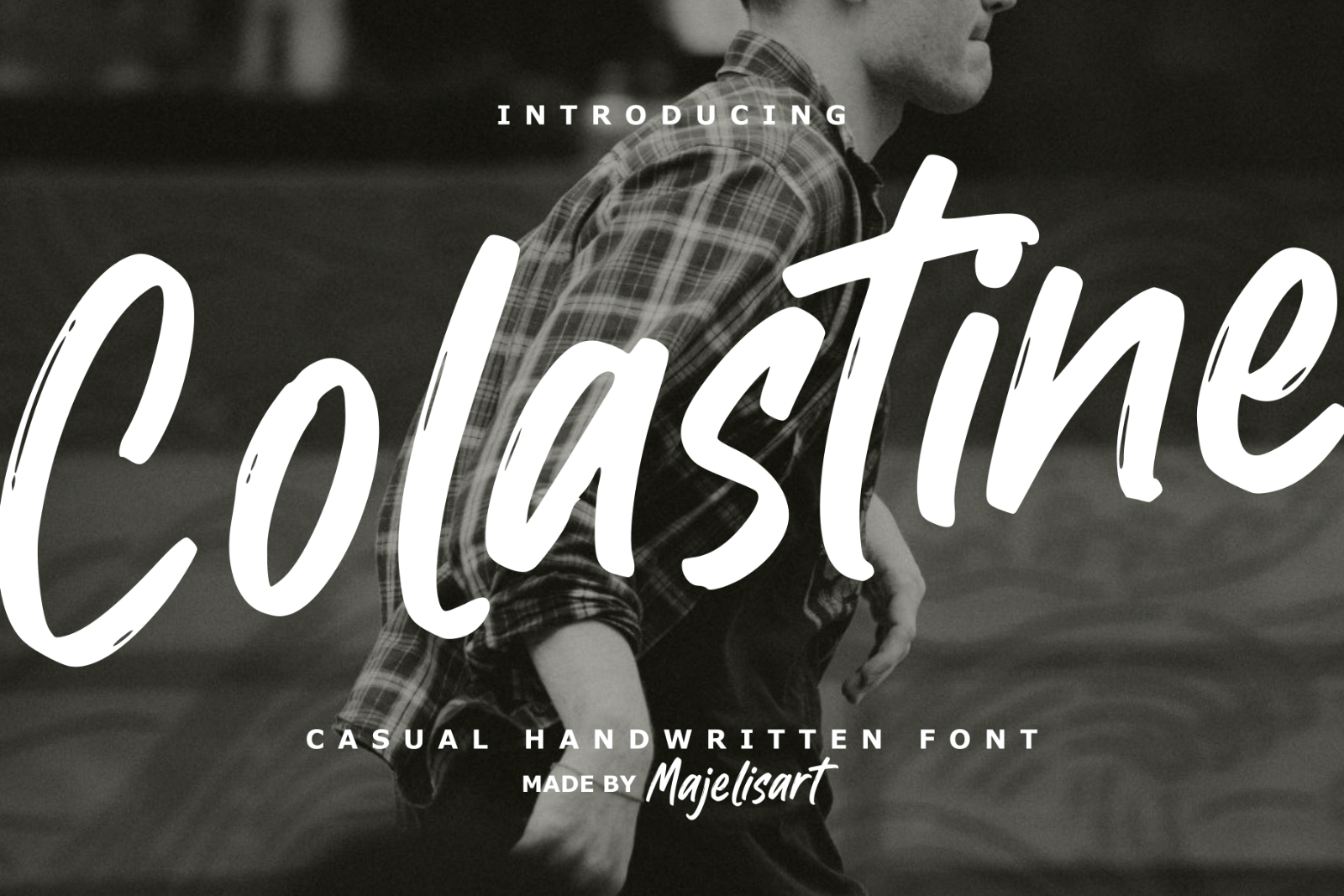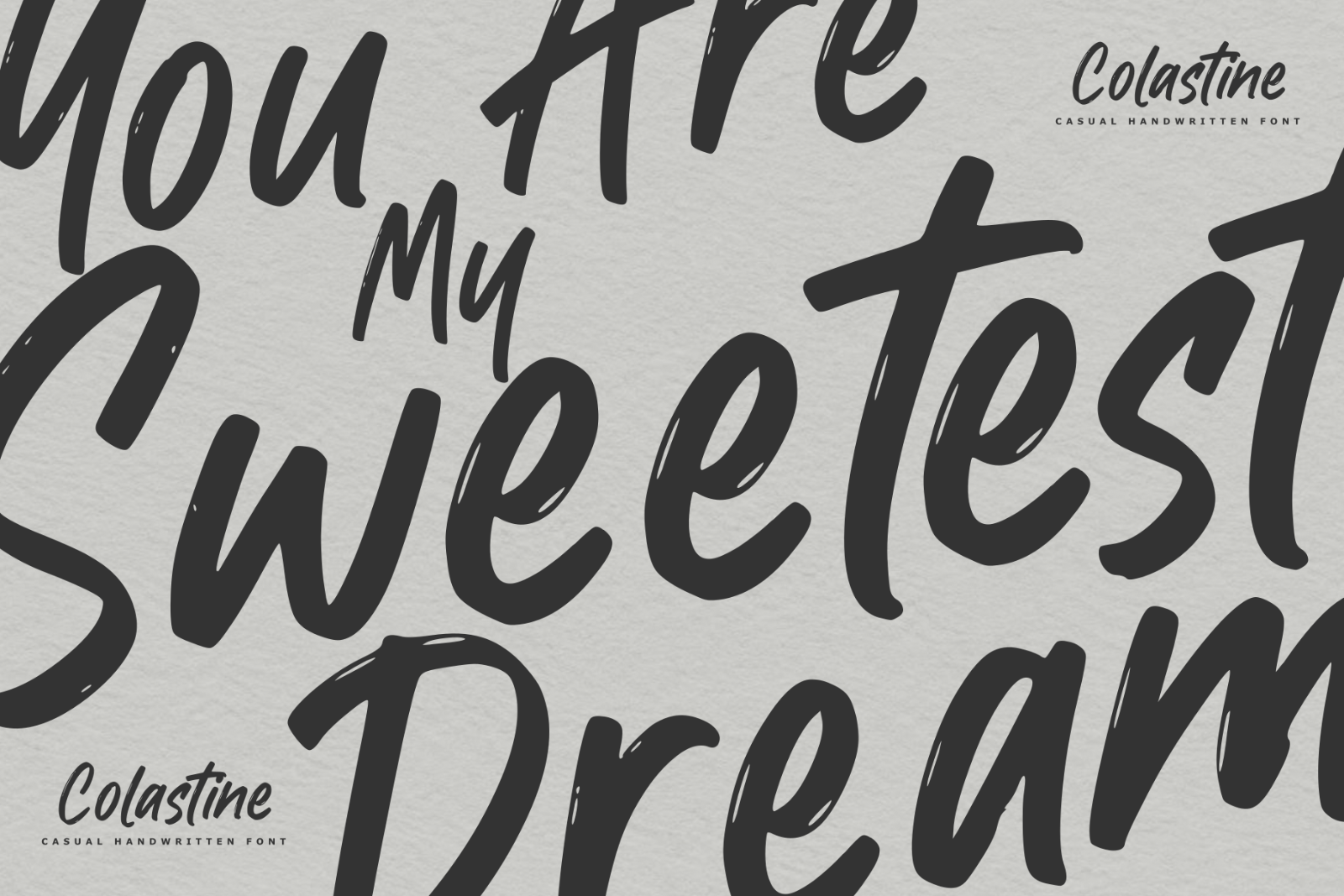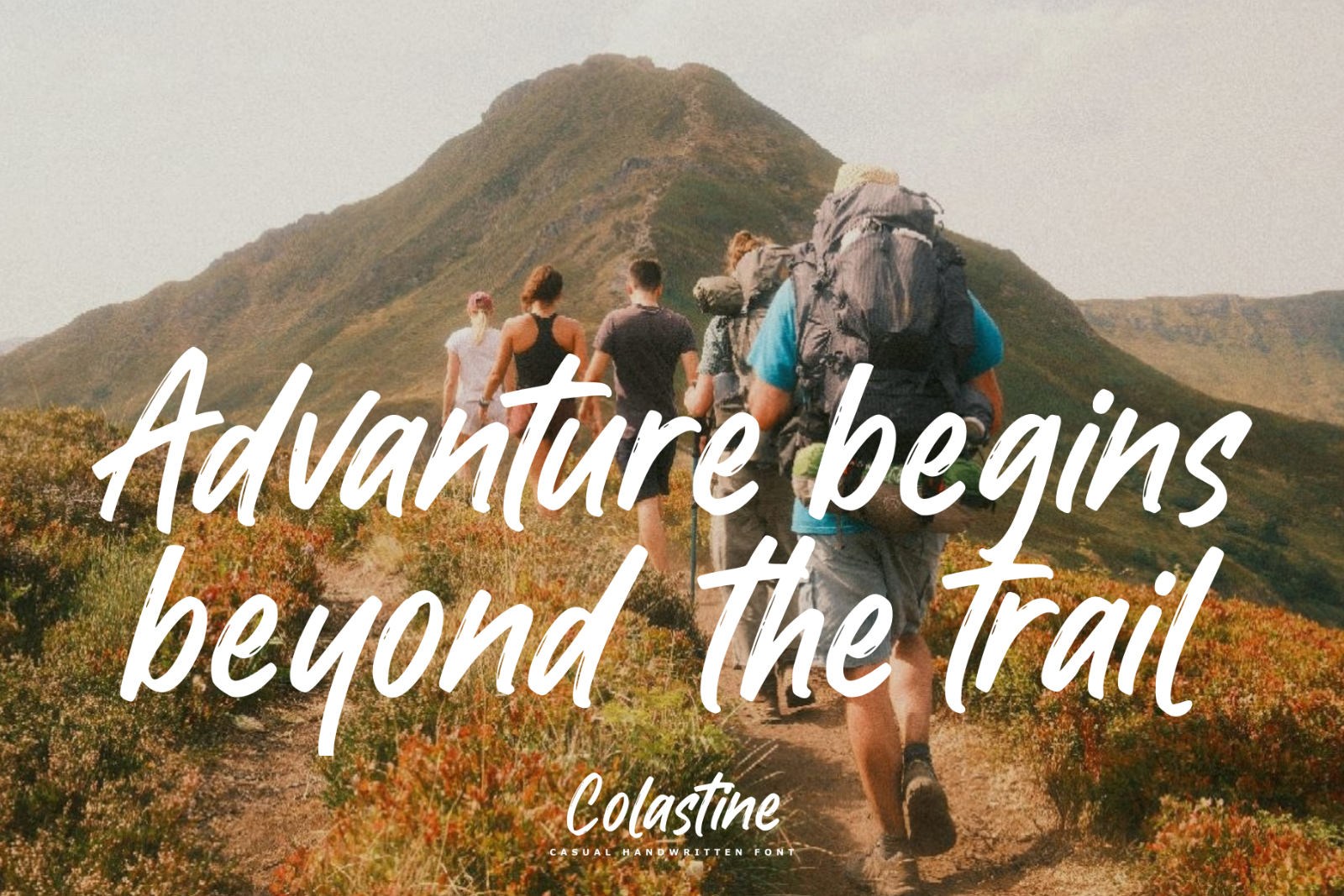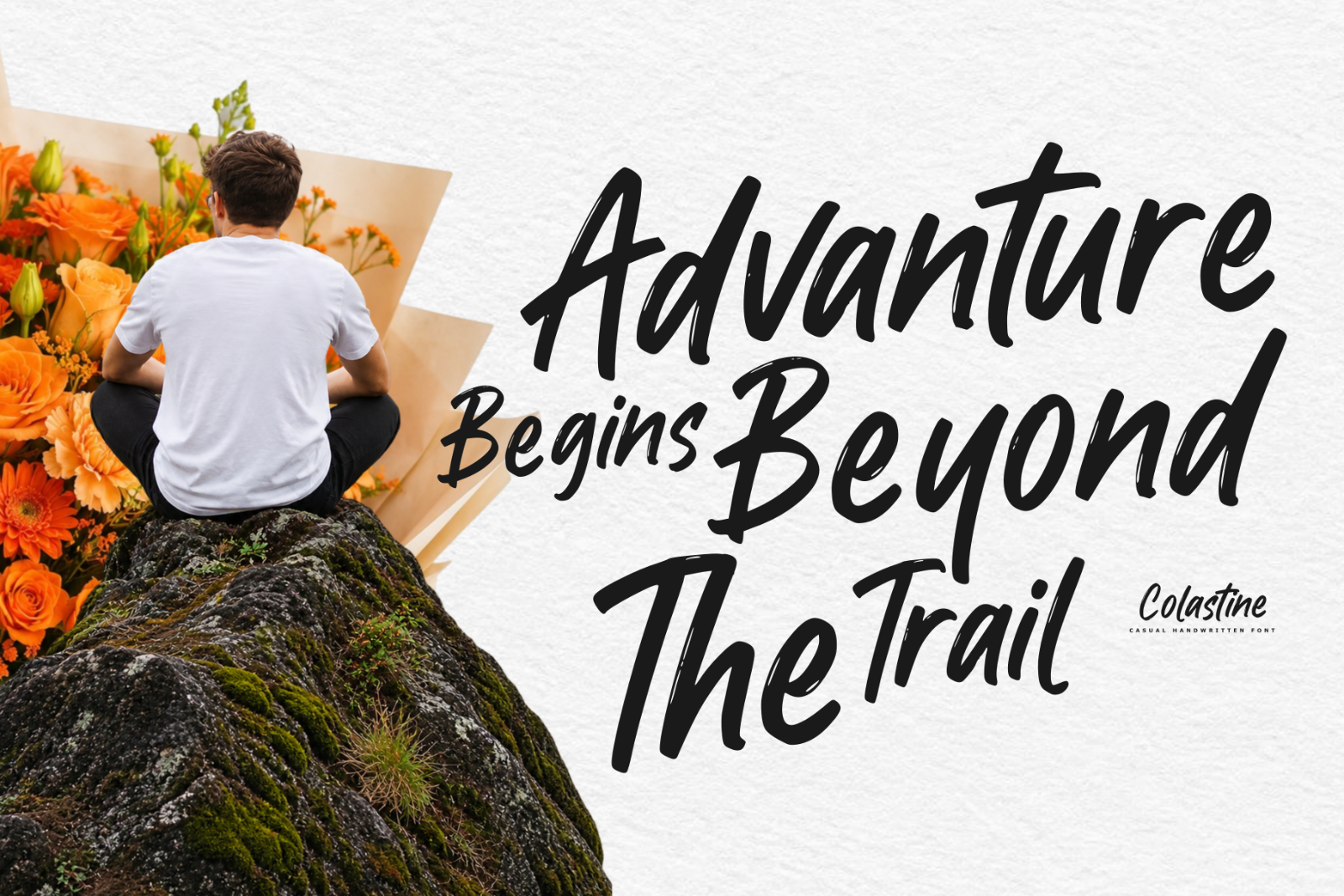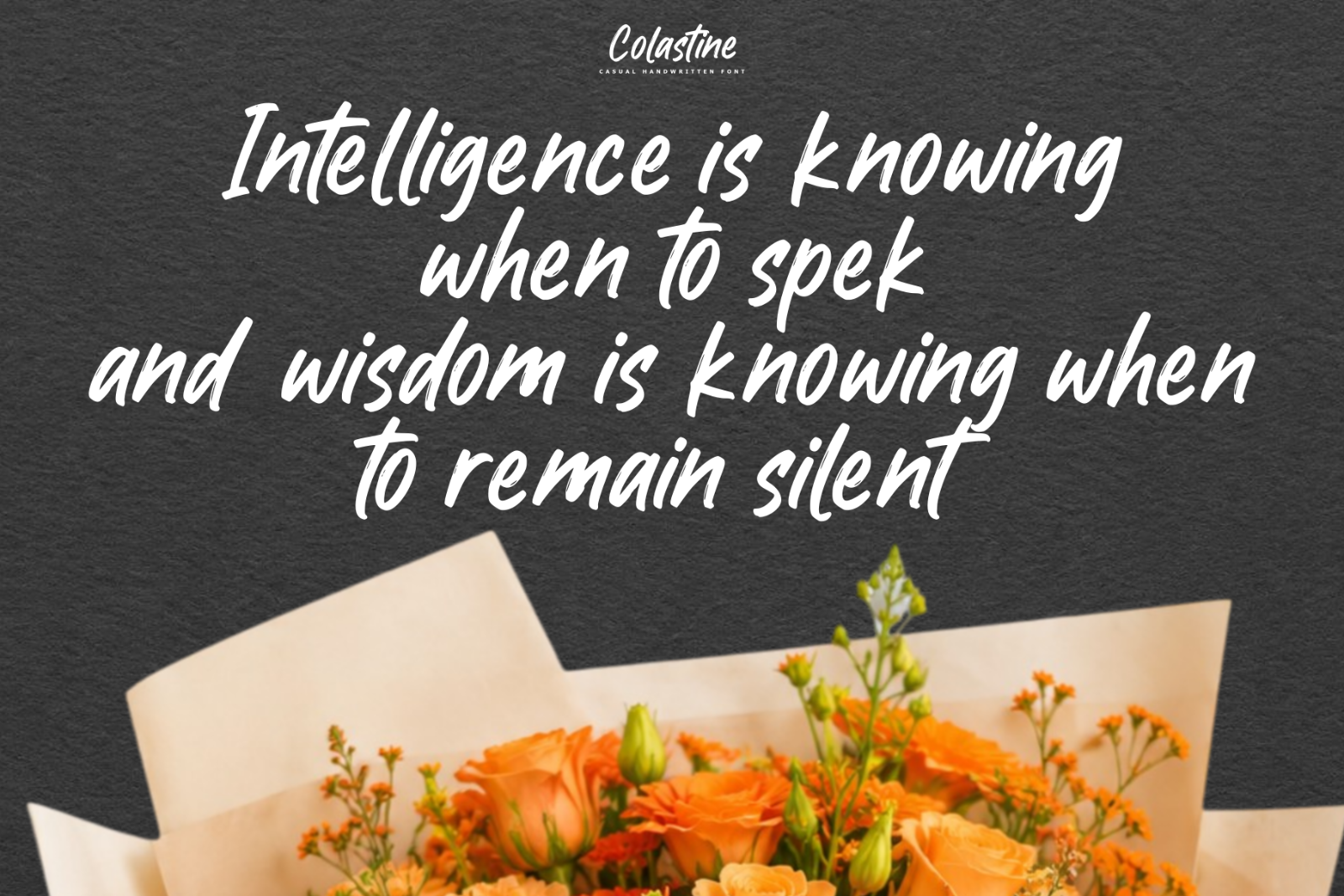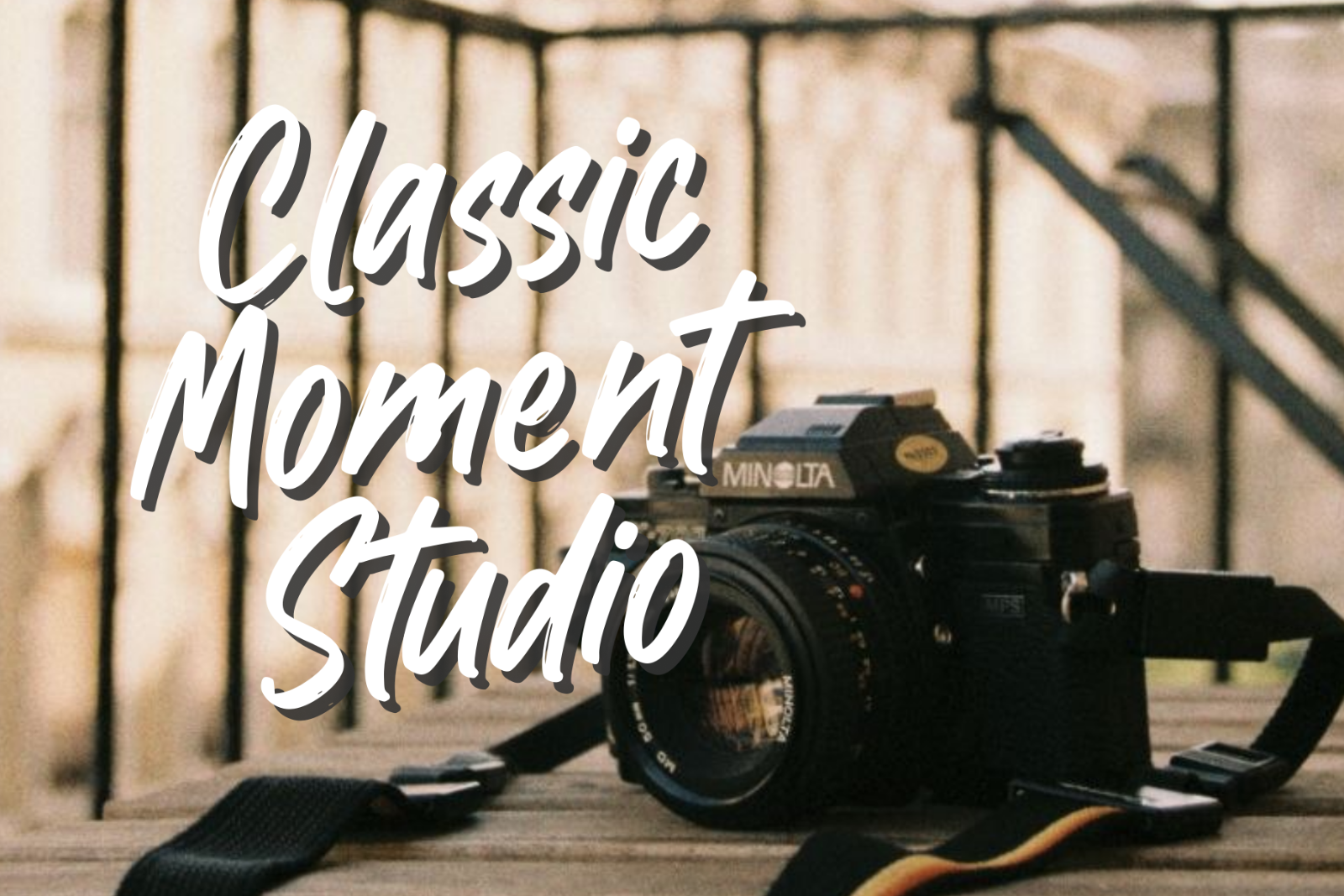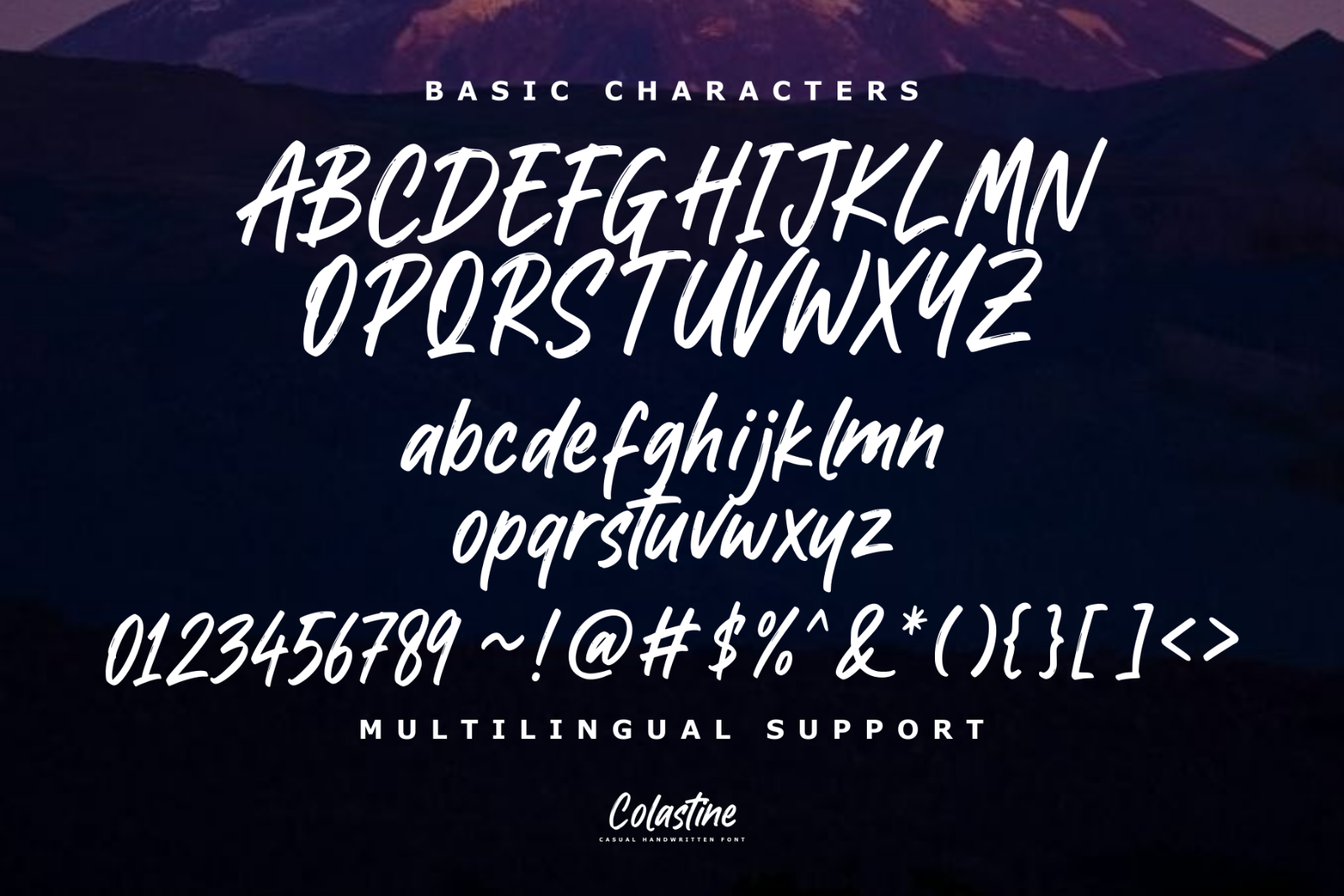
Colastine — Casual Handwritten Font
Introducing Colastine, a bold and expressive Casual Handwritten Font with a natural brush-like appearance and energetic handwritten strokes.
Its flowing letterforms, slightly rough edges, and relaxed character create an authentic handmade feel while maintaining a strong visual presence. Colastine is perfect for designs that need a casual, creative, youthful, and stylish personality.
Perfect For
Logo & branding
T-shirt & apparel designs
Streetwear
Posters & flyers
Social media graphics
Photography branding
Fashion & lifestyle designs
Album covers
Product packaging
Stickers & merchandise
Quotes & artwork
Headlines & titles
Advertising
Personal branding
Multilingual Support
Colastine includes multilingual support for a variety of languages using supported Latin-based characters, making it suitable for creative projects targeting an international audience.
Colastine — Casual strokes, bold character, creative attitude.